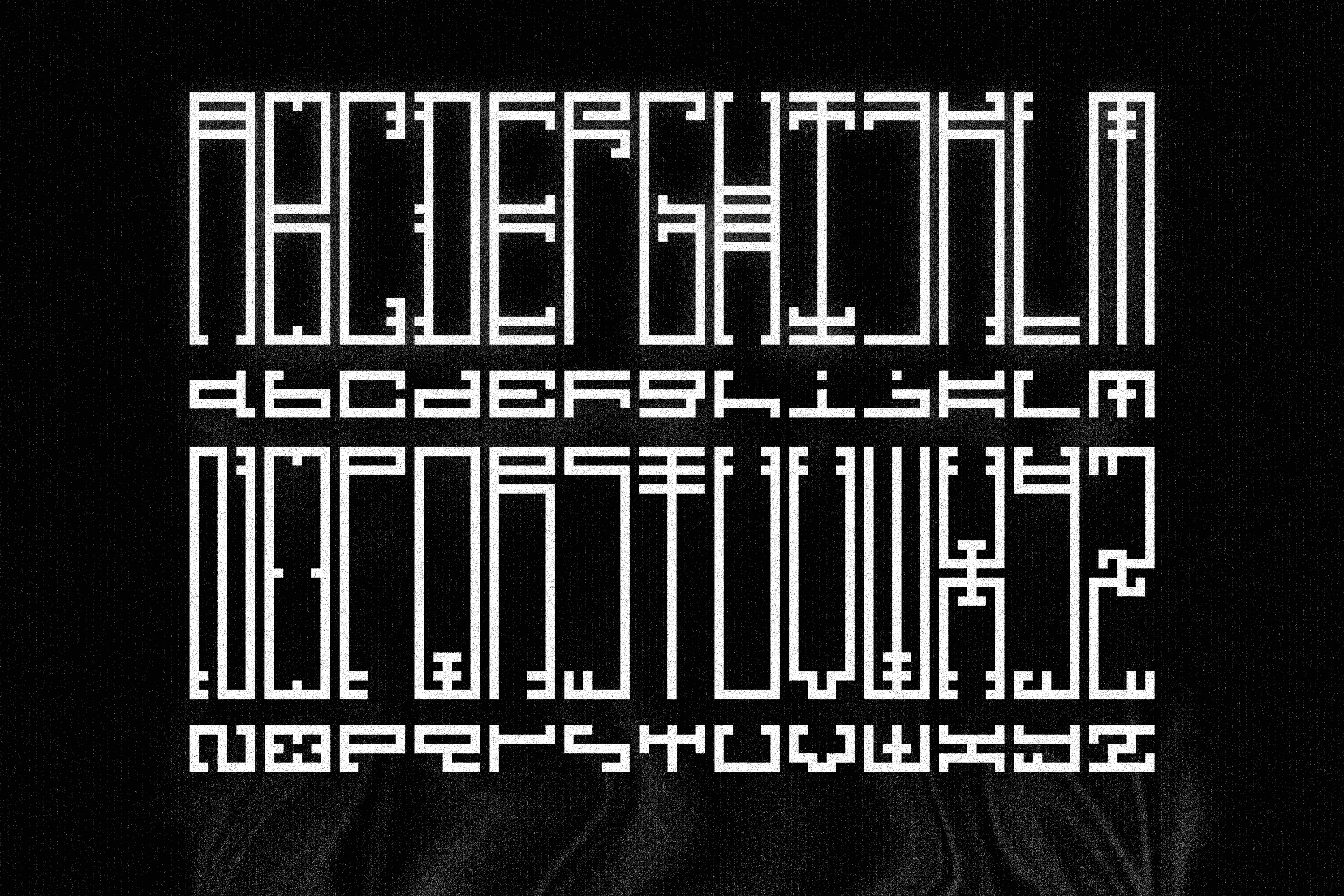
Heximono Typeface
HEXIMONO is a typographic system built like a digital curse—ritual code meets brutalist monospacing. Hand-drawn in analog and summoned into grid-perfect vectors over 48 hours, its forms echo totemic glyphs, broken terminals, and forbidden interfaces. A language for machines who remember magic.